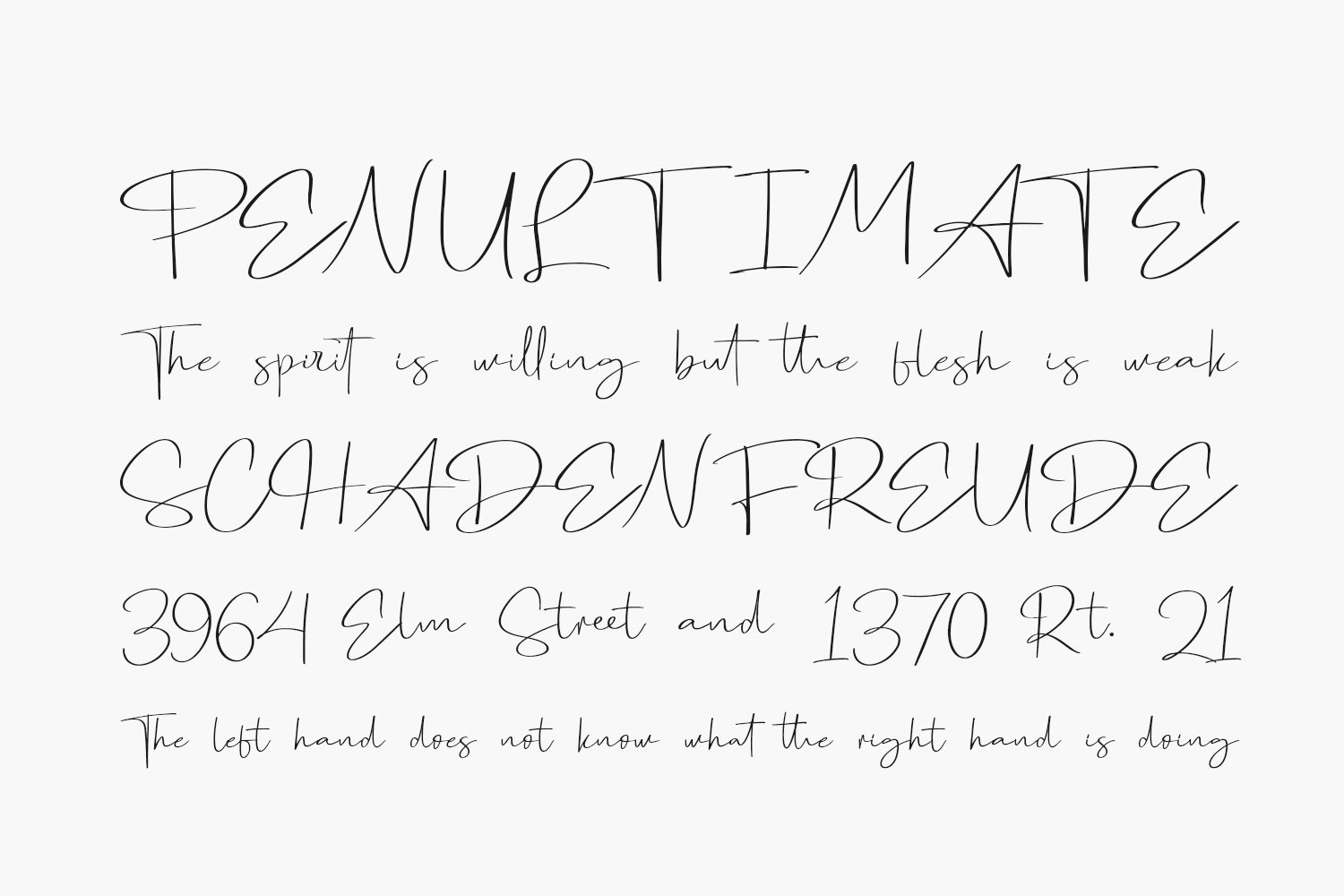
Phitagate Free Font is a signature script font with beautiful strokes. It is impressive and features a clean and elegant vibe, is professionally shaped, and as a result, it will easily match a variety of creations. Phitagate Free is free for personal use only. Please purchase the full version for commercial use.
Designed by Ronny Studio